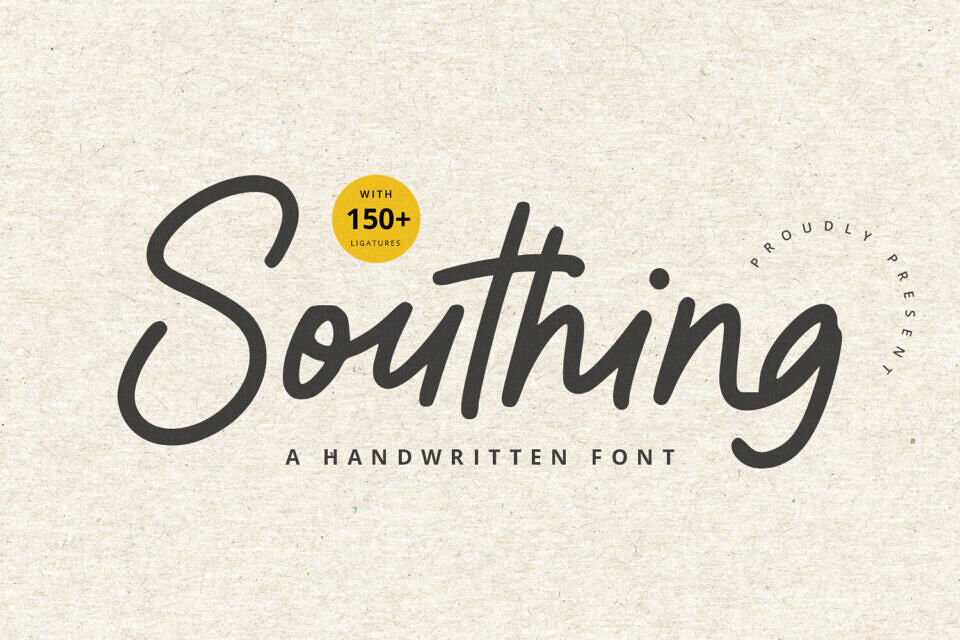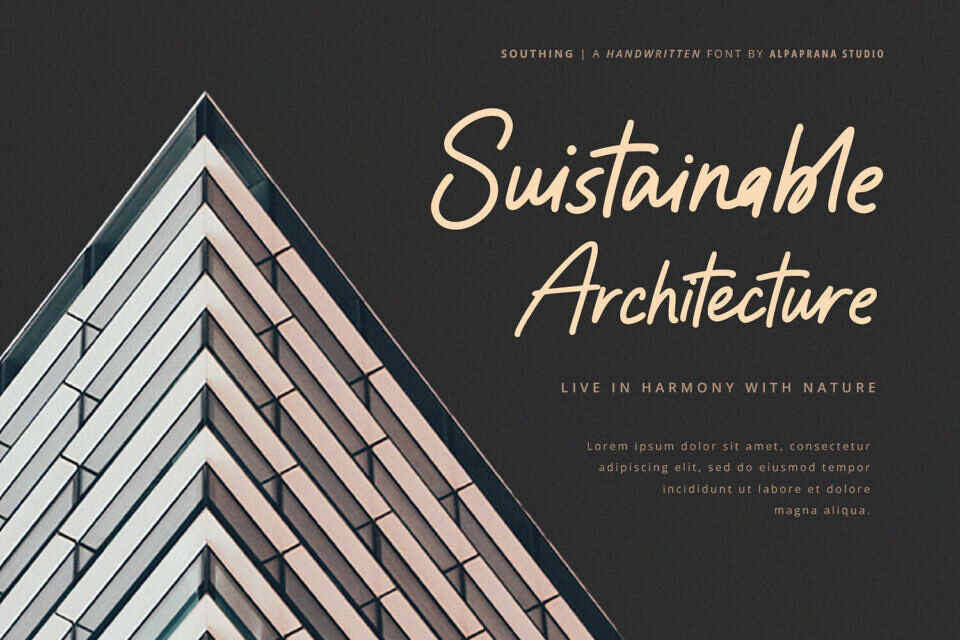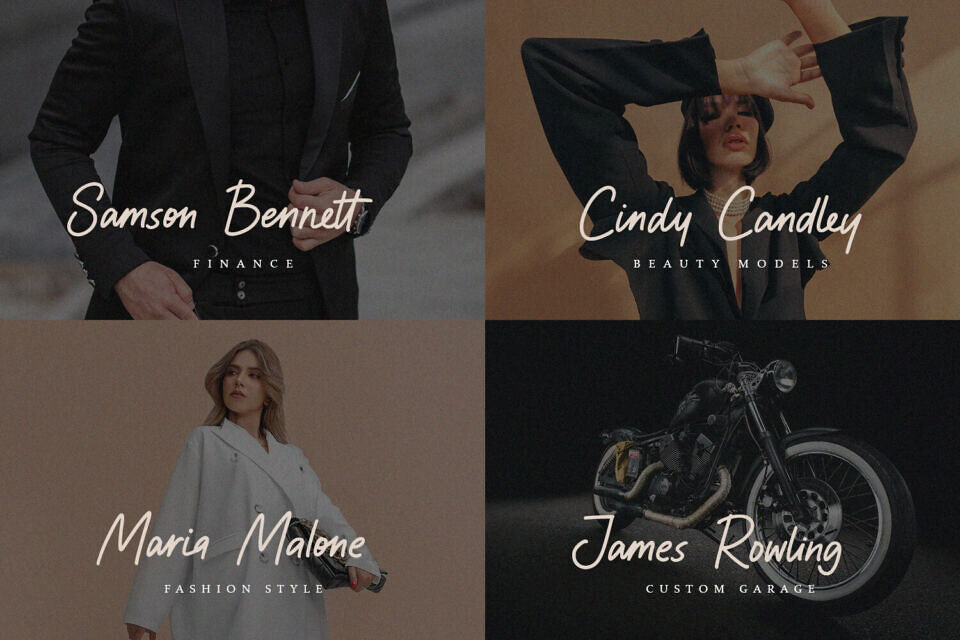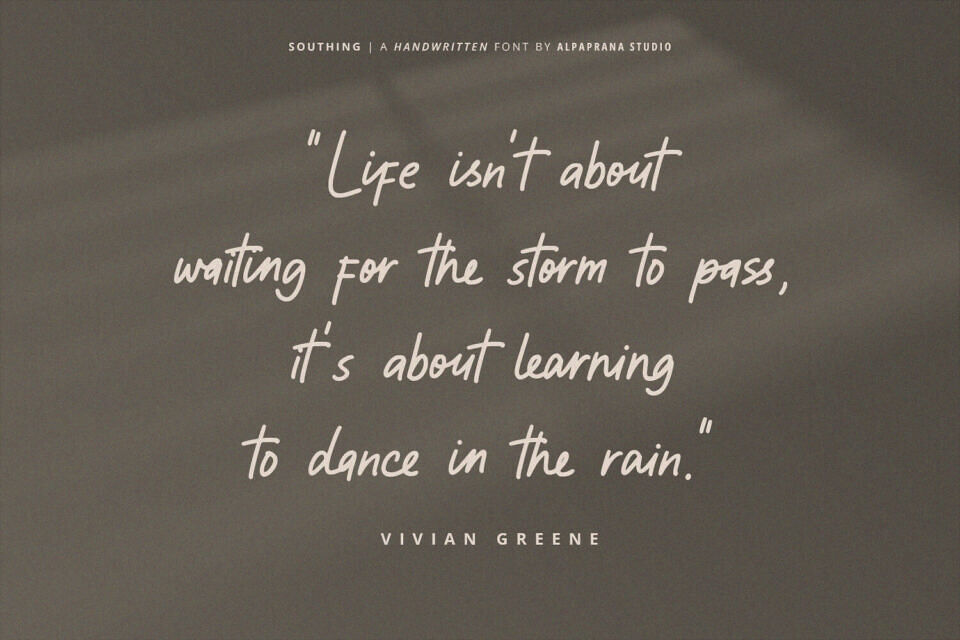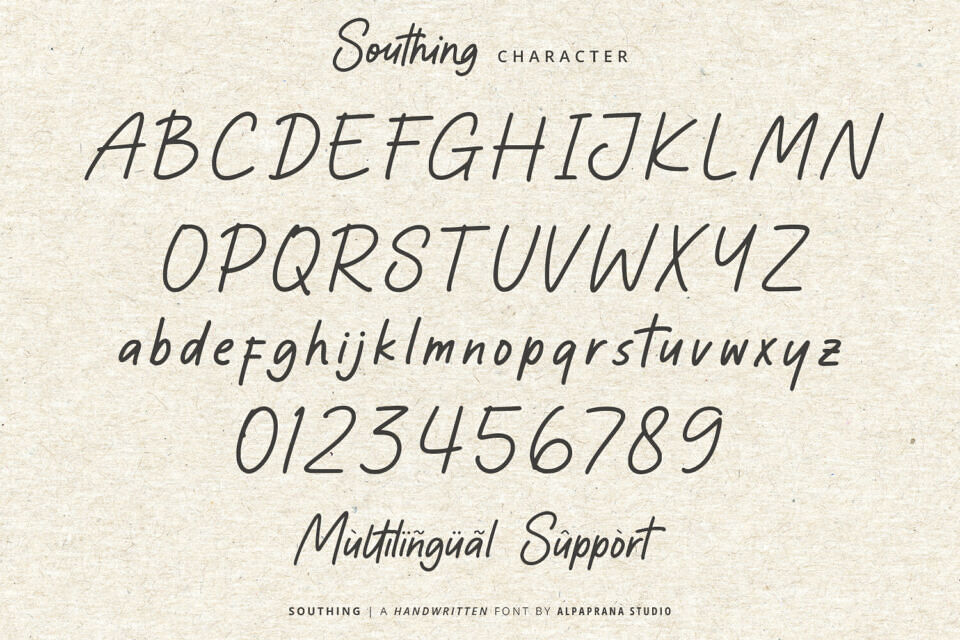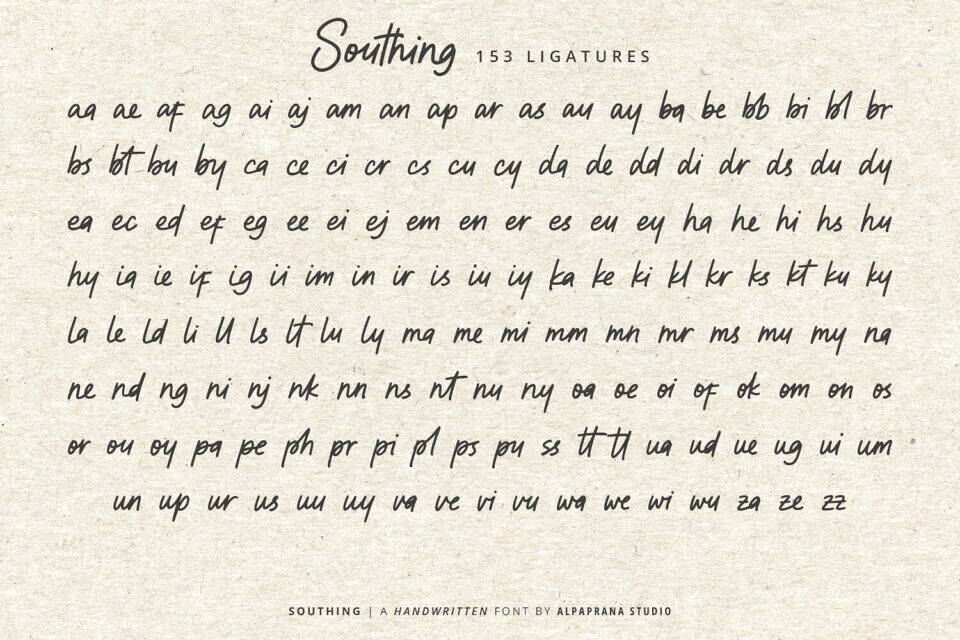
Southing Font
This elegant, handwritten font is a masterful blend of classic calligraphy and modern style. Its timeless yet fresh design makes it perfect for various applications, including branding, packaging, and clothing.
Use it to elevate your projects, from magazine layouts to photography and event materials, and discover a new favorite font that will take your designs to new heights.